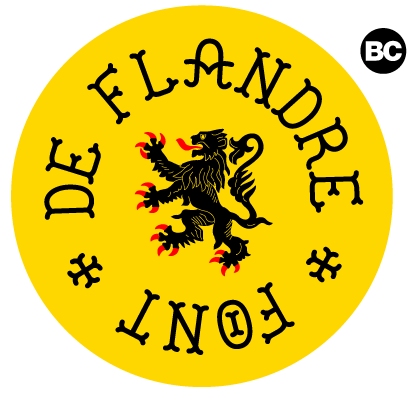
A nice old Slab Serif for all your gigs posters, flyers or even Flemish creations! This font is free for personal use, If you want to use it commercially, please send me an email bc(at)vnbc.fr If you want to use it in commercial purpose please purchase a license here: http://www.revolge.com/product/de-flandre-font/ Or contact me on bc(at)vnbc.fr |